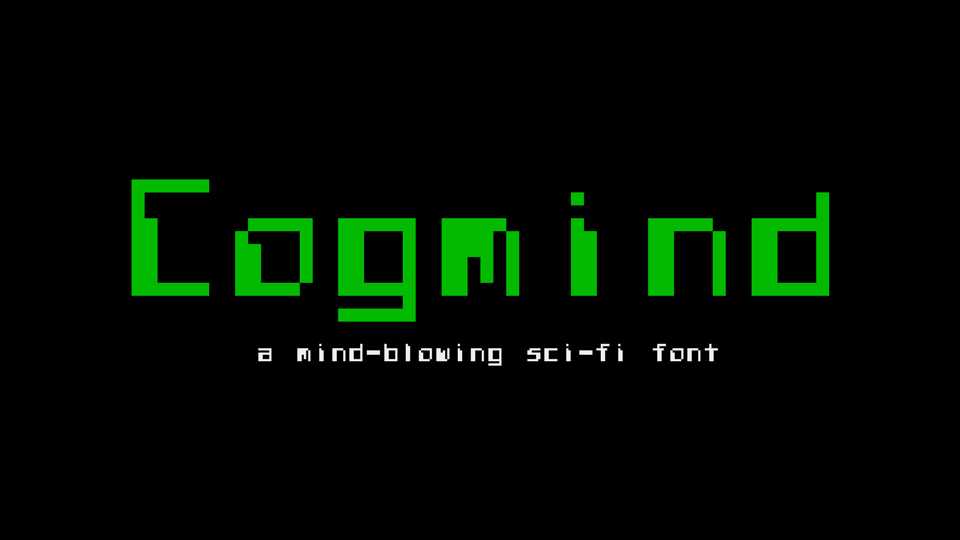
Download Cogmind font, a mind-blowing sci-fi typeface, a version of Cogmind in-game fonts. Now two variants Cog and Smallcaps are available.
Designer: PlasticHeart